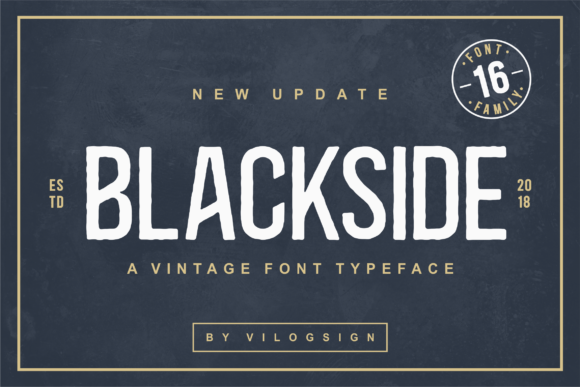
Welcome to the world of Blackside, the perfect vintage font family for all your design needs. Created by Vilogsign, Blackside has a unique round and rough touch that sets it apart from other sans serif fonts. With its natural feel, this font family is perfect for logos, labels, banners, posters, and every other design which needs a vintage vibe.
The Blackside font family features a range of weights and styles, giving you the flexibility to create a variety of designs with ease. Whether you're looking for a bold statement or a subtle touch, Blackside has you covered. With its fun elements included as a bonus, you can take your designs to the next level.
What sets Blackside apart from other fonts is its ability to evoke emotions in your audience. Its vintage feel takes you back to a time when things were simpler, yet sophisticated. The rough edges and natural feel of this font family give your designs a unique personality that is hard to replicate.